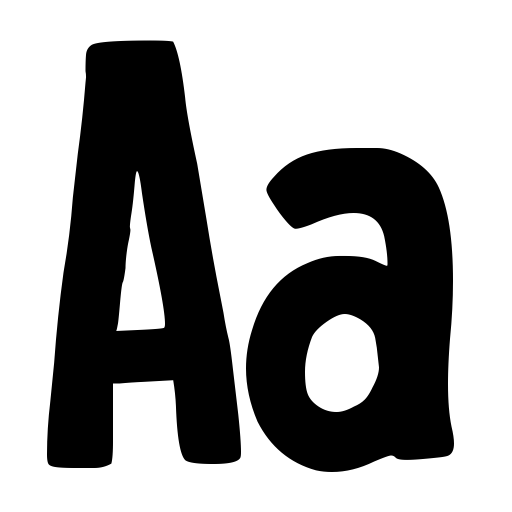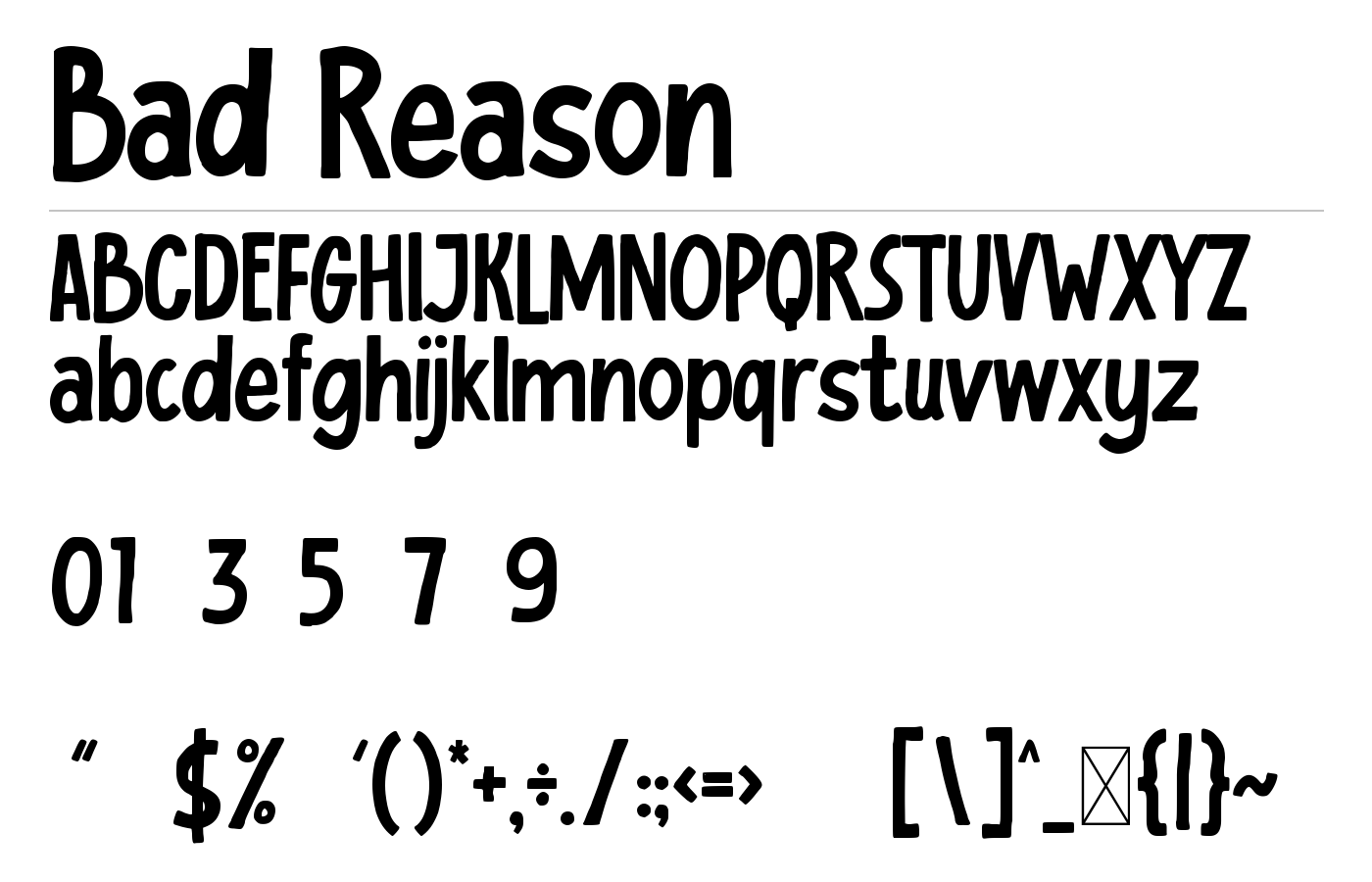
Bad Reason is a playful, hand-drawn sans serif font with a casual and slightly quirky style. Its uneven stroke widths, tall x-height, and rounded shapes give it a friendly and approachable personality, making it perfect for informal branding, children’s materials, and creative projects that want to feel warm and expressive. This font works well in headlines and display use where a fun, human touch is needed.
Bad Reason Font
About Bad Reason Font